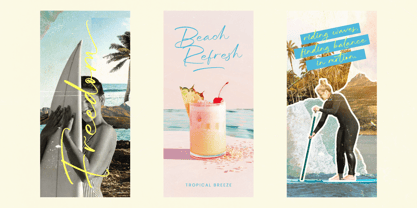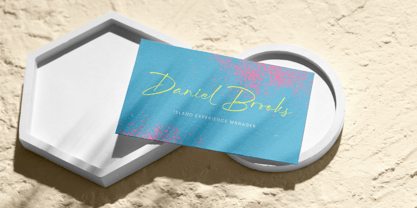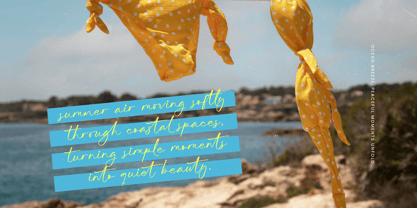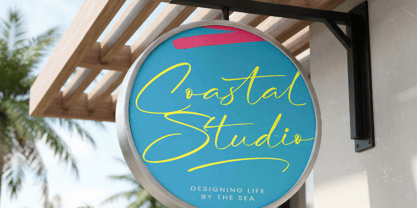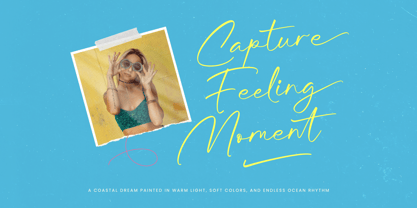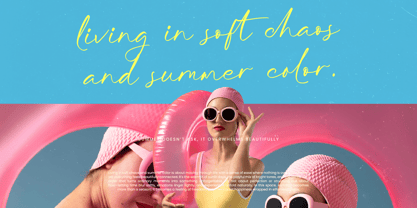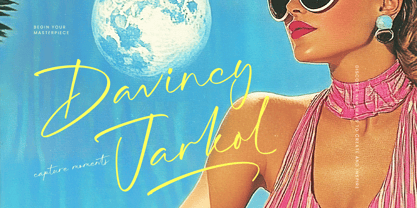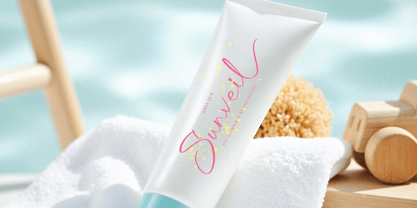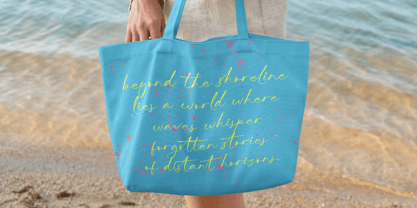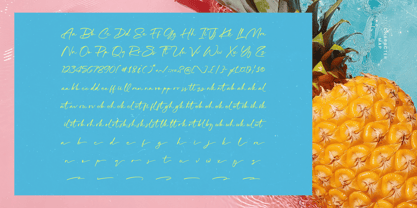
Davincy Jarkol
La famille de polices Davincy Jarkol a été conçue par Heru Utama Putra et publiée par Stylishtype Studio. Davincy Jarkol contient 2 styles et options de package familial. En savoir plus sur cette famille
Elevate your creative vision with the unparalleled elegance of Davincy Jarkol - Handwritten Brush, a typeface that perfectly captures the essence of organic sophistication. This font features expressive strokes and fluid movements, making it an essential tool for designers seeking an authentic aesthetic. Its delicate brush texture provides a high-end feel that transforms standard text into a visual masterpiece, ensuring your brand stands out with a distinctive personality and modern calligraphy charm.